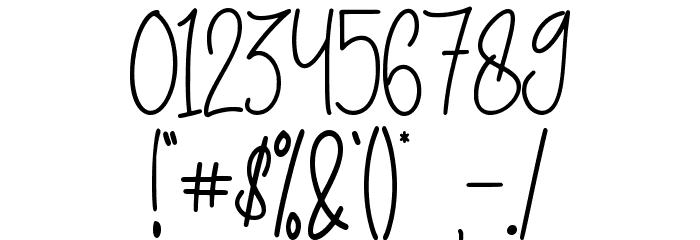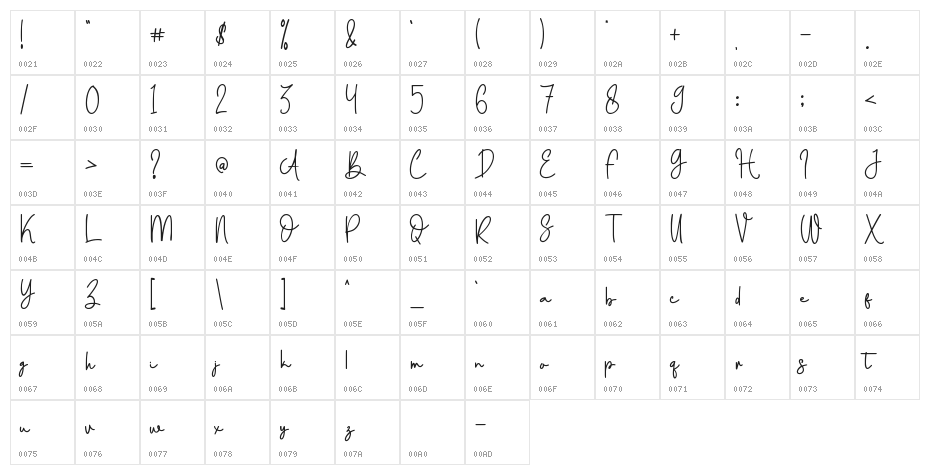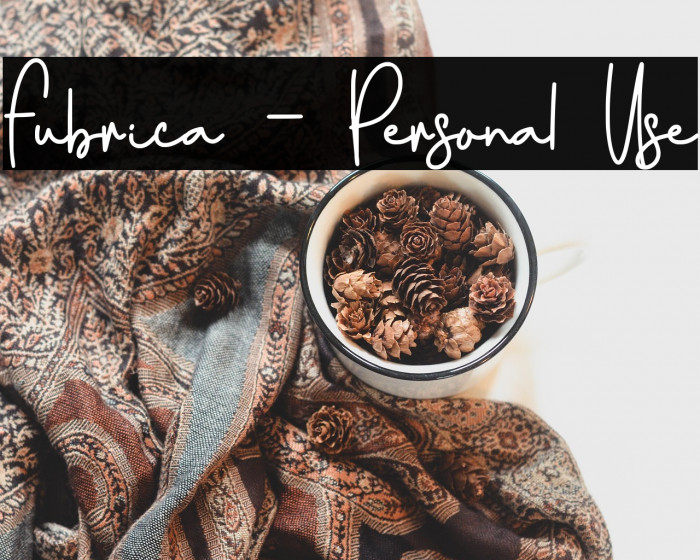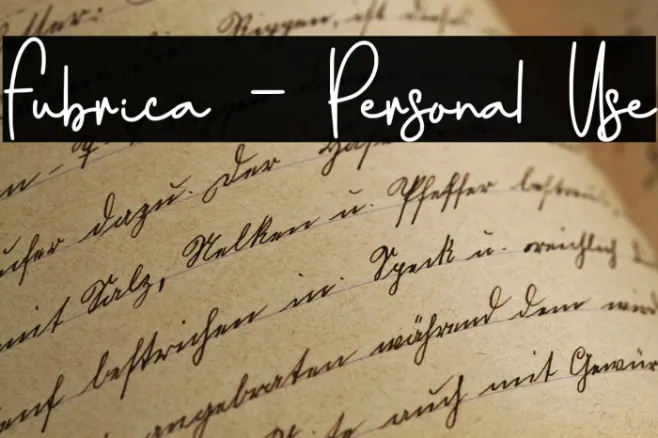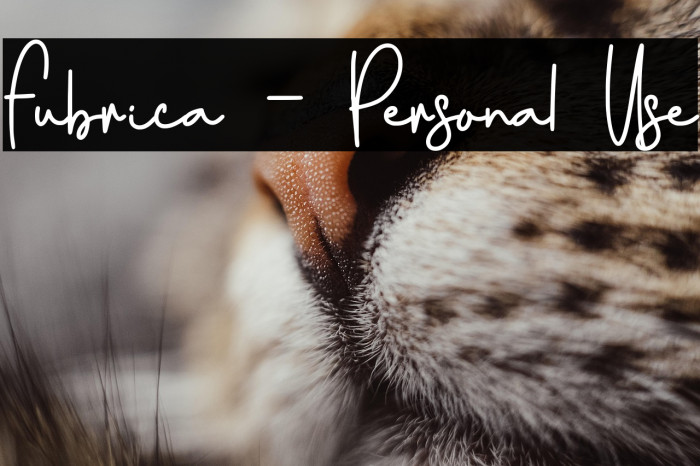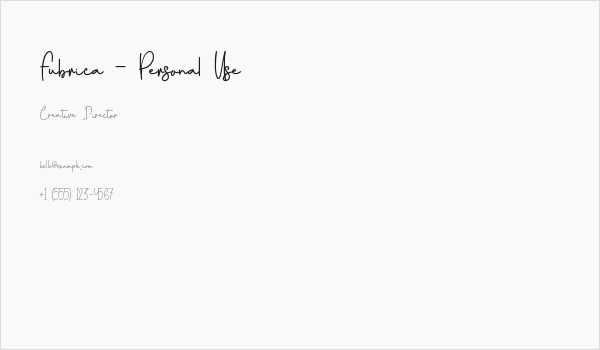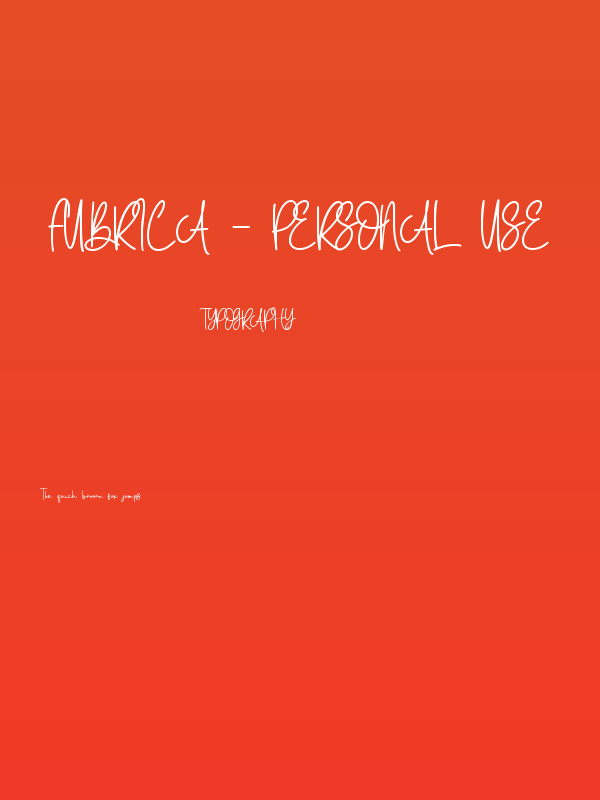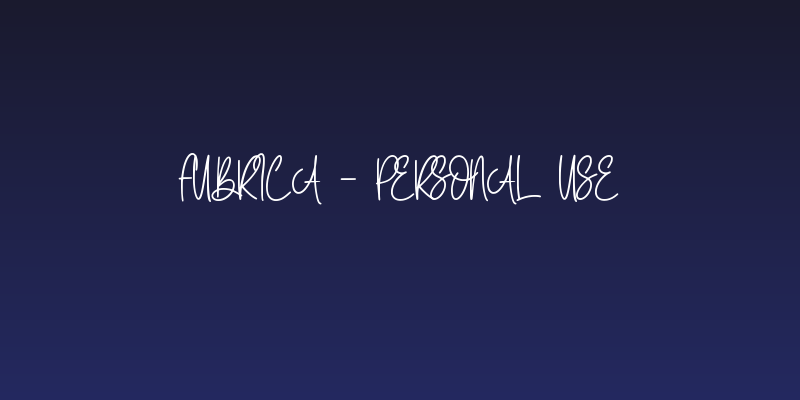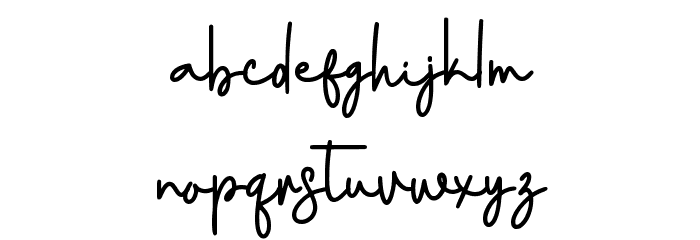
Fubrica - Personal Use Font
Fubrica - Personal Use Description
This font features a playful and whimsical handwritten style, characterized by its flowing, cursive-like strokes. The letters are tall and narrow, with a consistent stroke width that gives it a clean and modern appearance. The uppercase letters are particularly expressive, with exaggerated loops and curves that add a touch of elegance and flair. The lowercase letters maintain a more subdued style, complementing the uppercase with a smooth and fluid connection. The numerals and special characters follow the same aesthetic, ensuring a cohesive look across all text. This font is perfect for projects that require a personal and approachable feel, such as invitations, greeting cards, and branding materials.
| Proposed Projects | Ideal for invitations, greeting cards, branding materials, and any project needing a personal touch. |